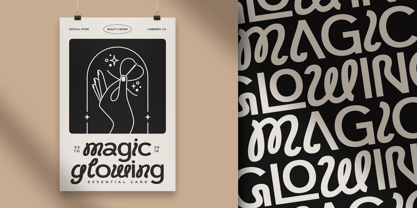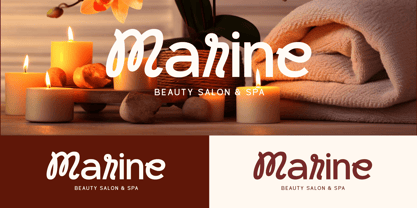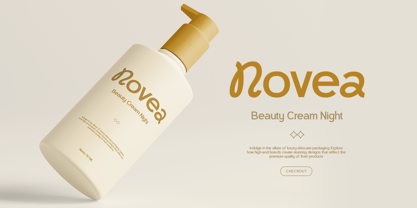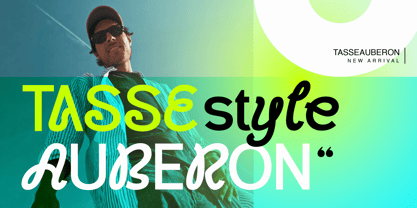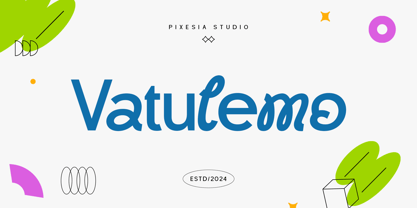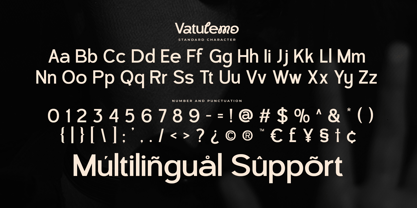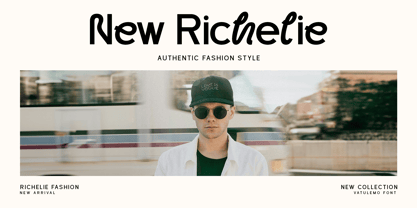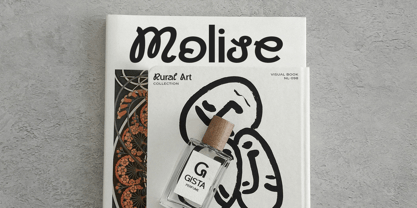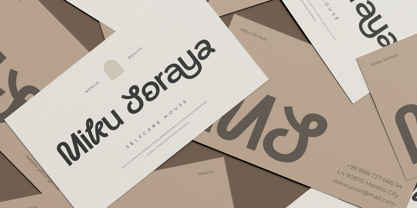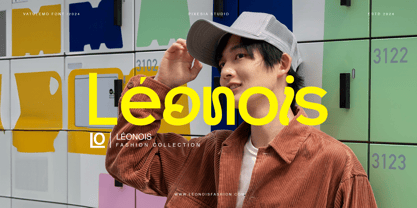
Vatulemo
Introducing Vatulemo - Experimental Sans Serif Font
Vatulemo is an experimental unique font with a sleek, contemporary design and distinctive curves. Combining classic sans-serif elements with playful loops, it offers endless creative possibilities.
Vatulemo is perfectly suited for branding, logotype, social media posts, headlines, logo, greating card, advertising, product packaging, label, photography, watermark, t-shirt, website design, invitation, stationery and any projects seeking a hint of elegant touch.
FEATURES
- Stylistic Alternates
- Ligatures
- Uppercase and Lowercase letters
- Numbering and Punctuations